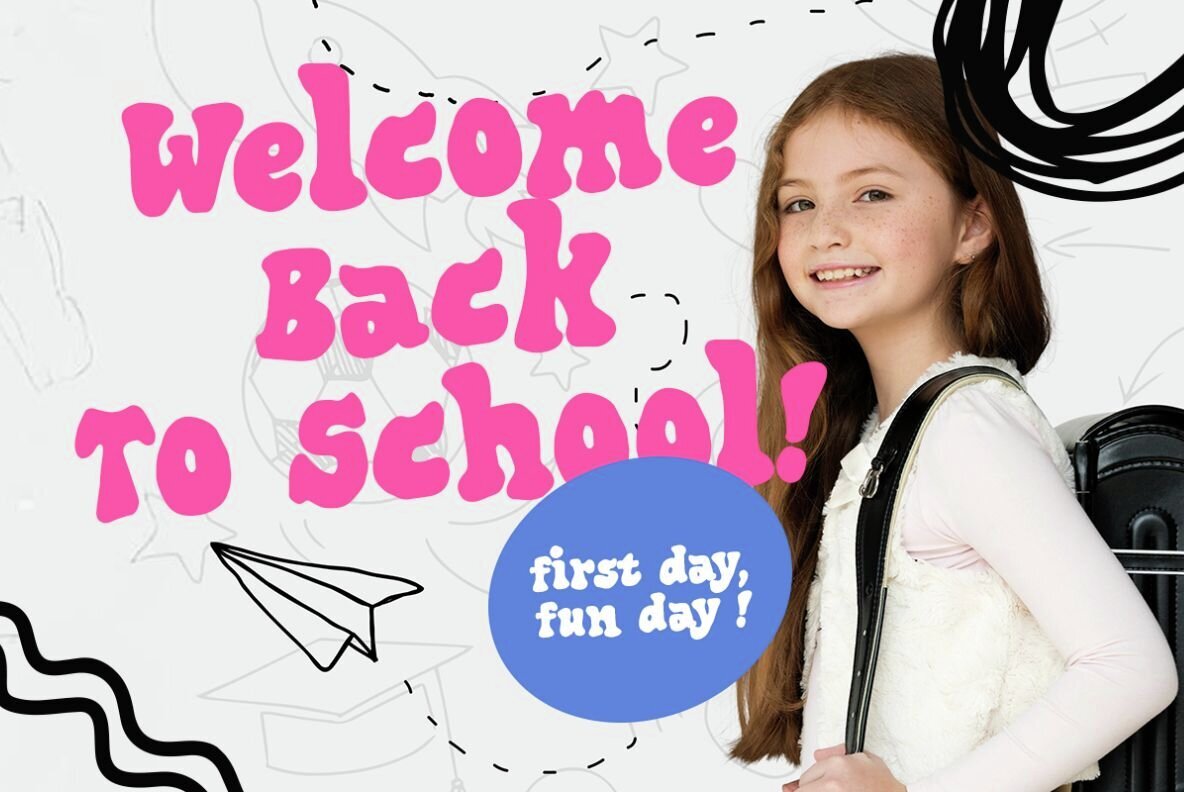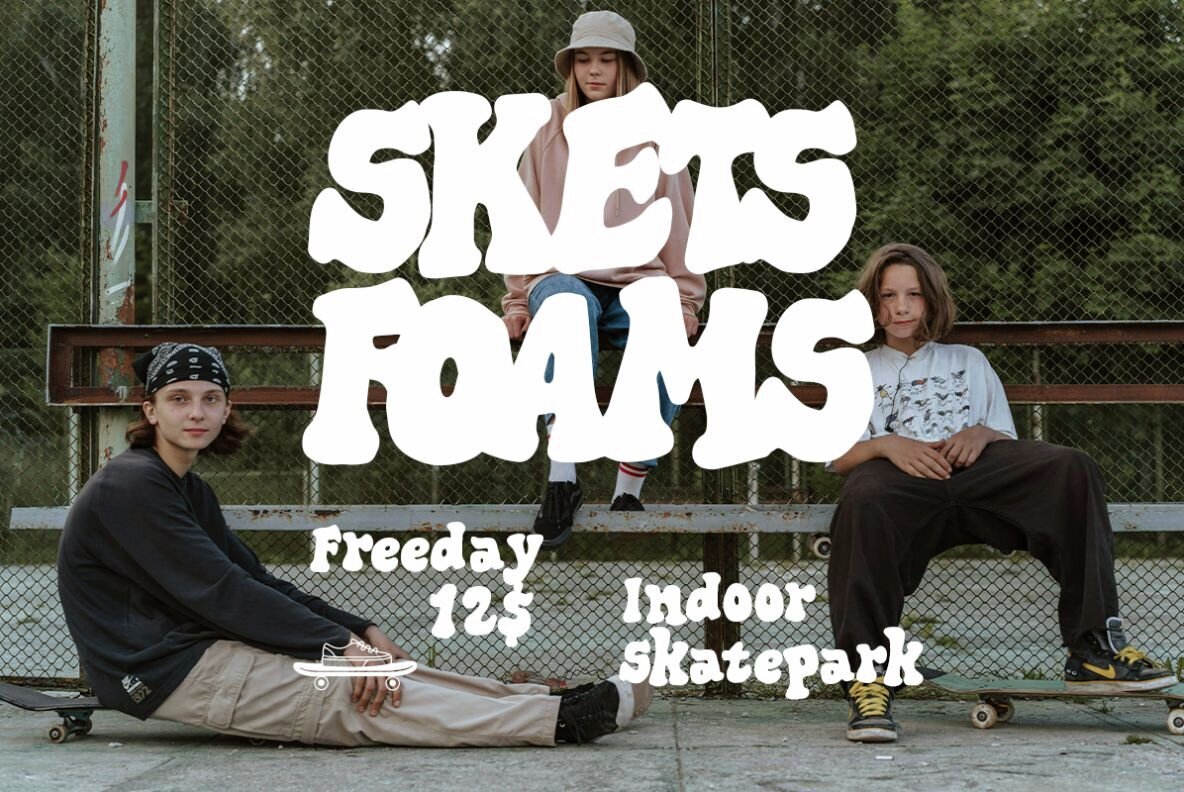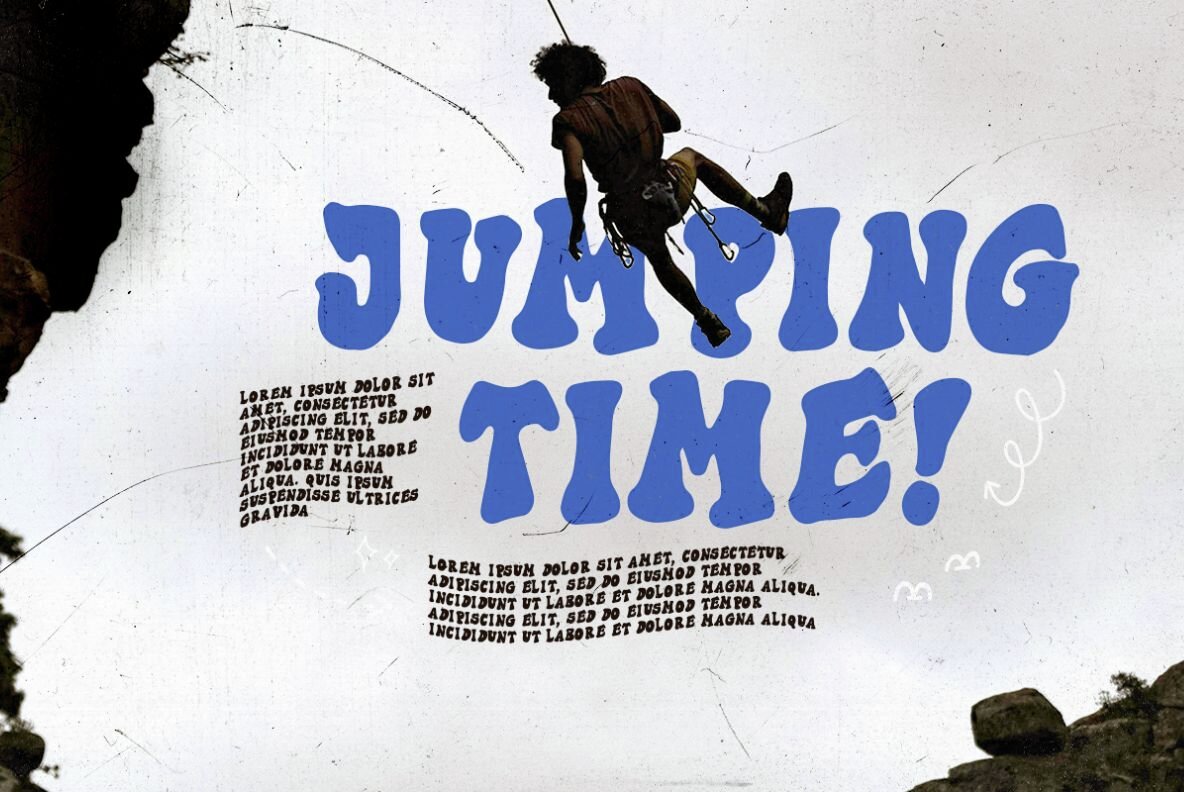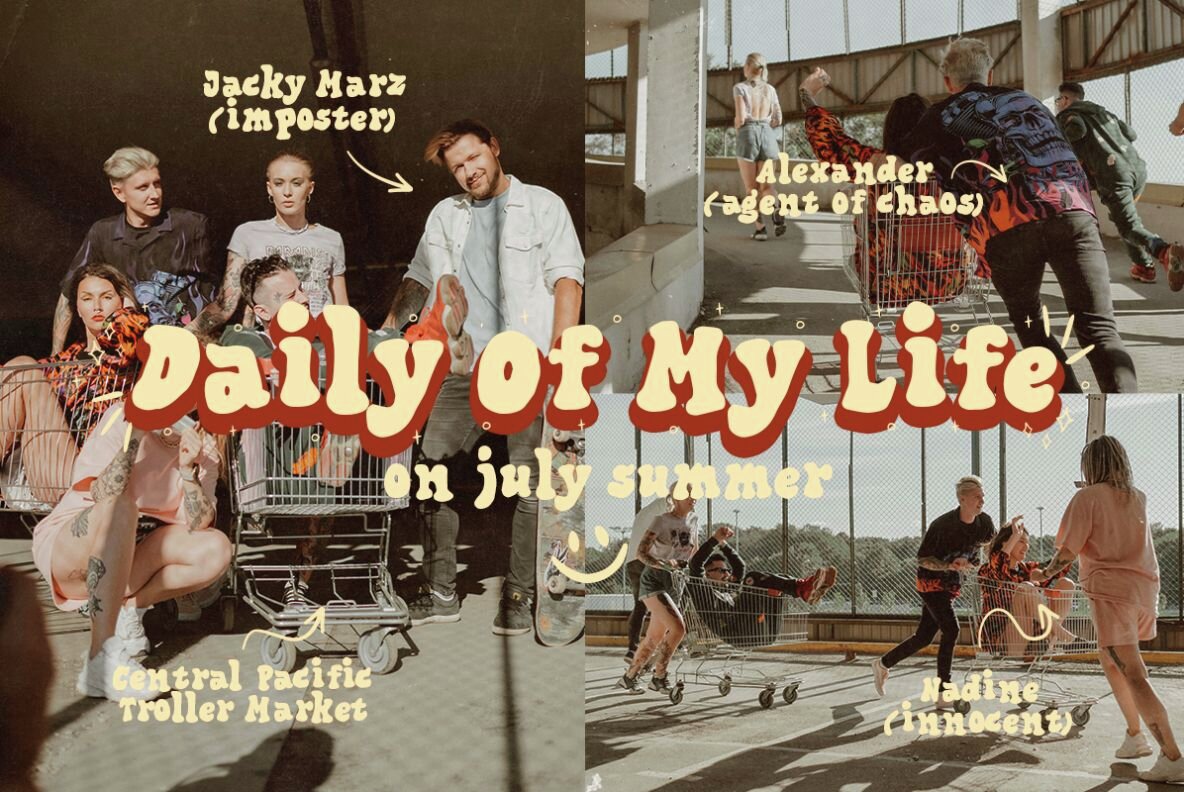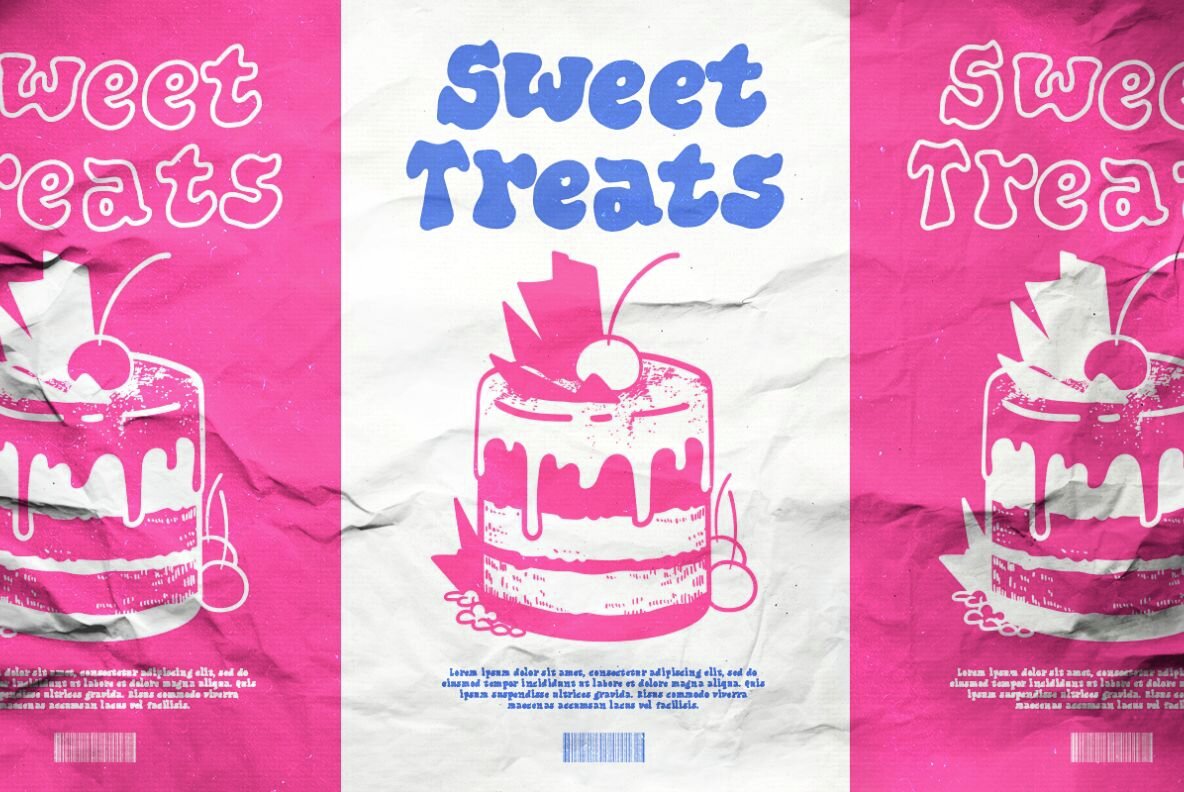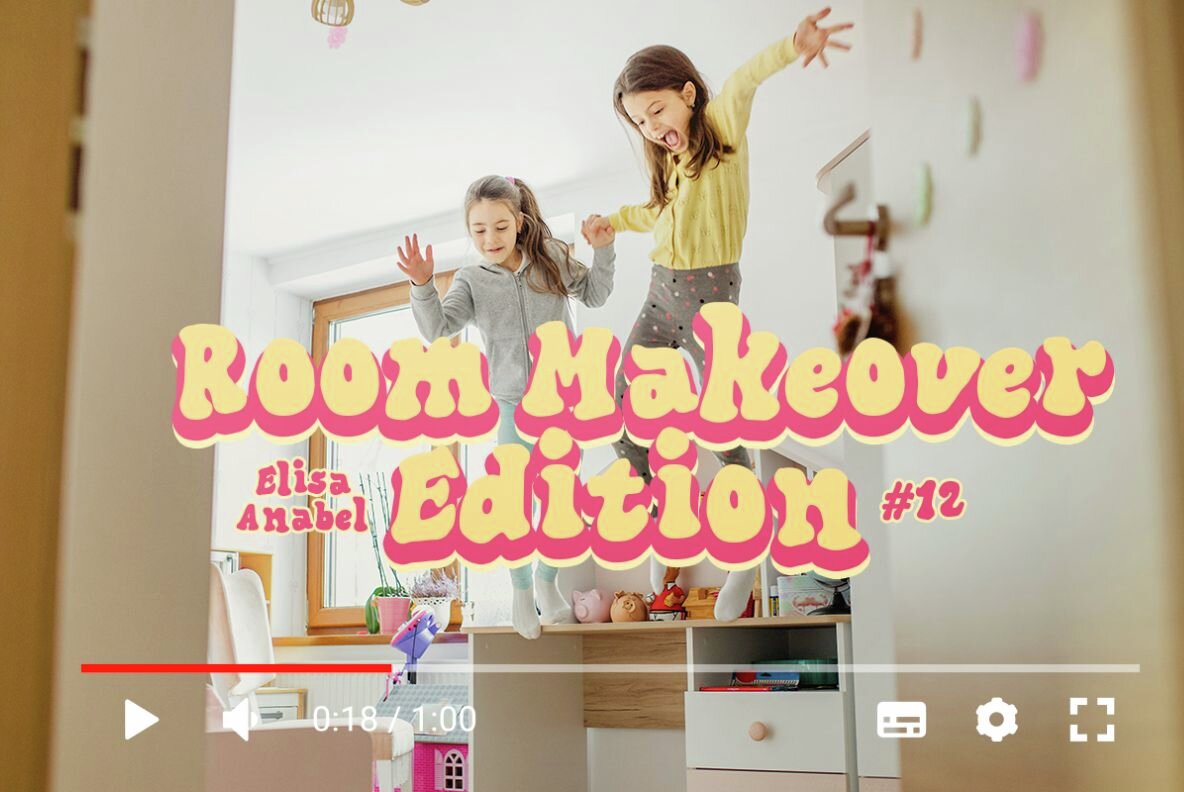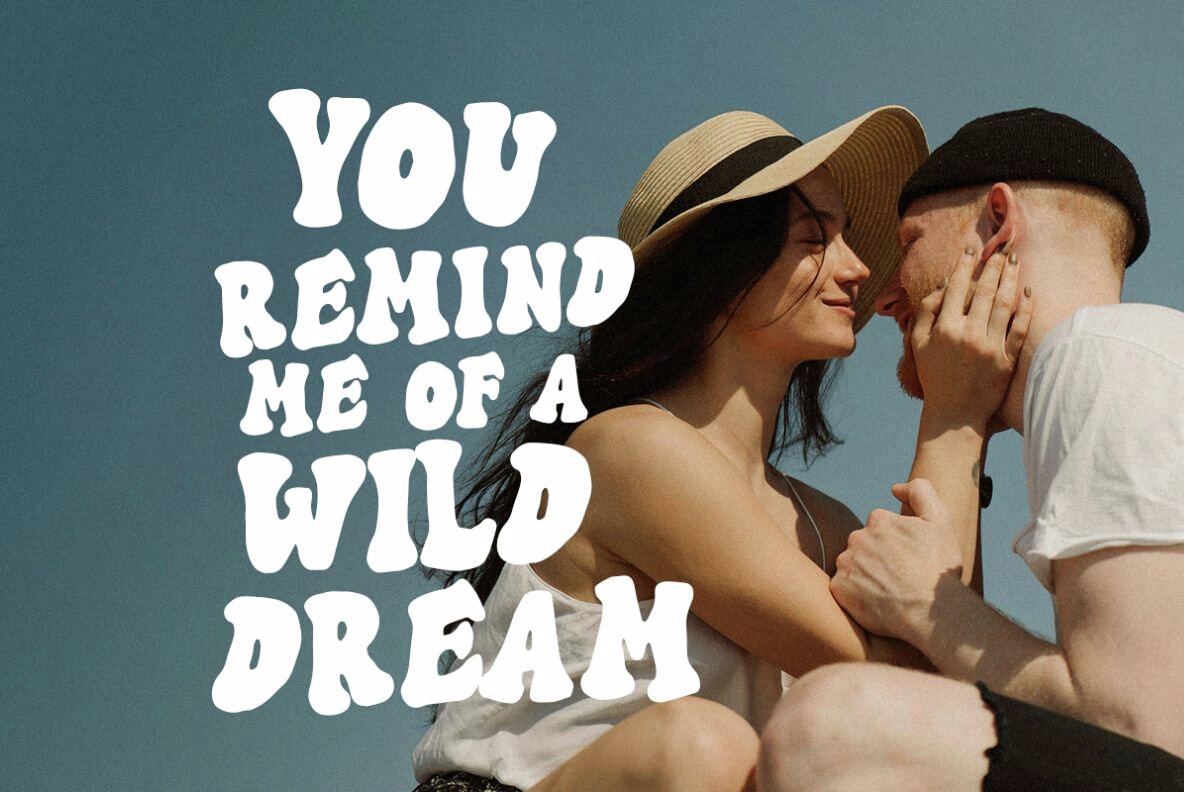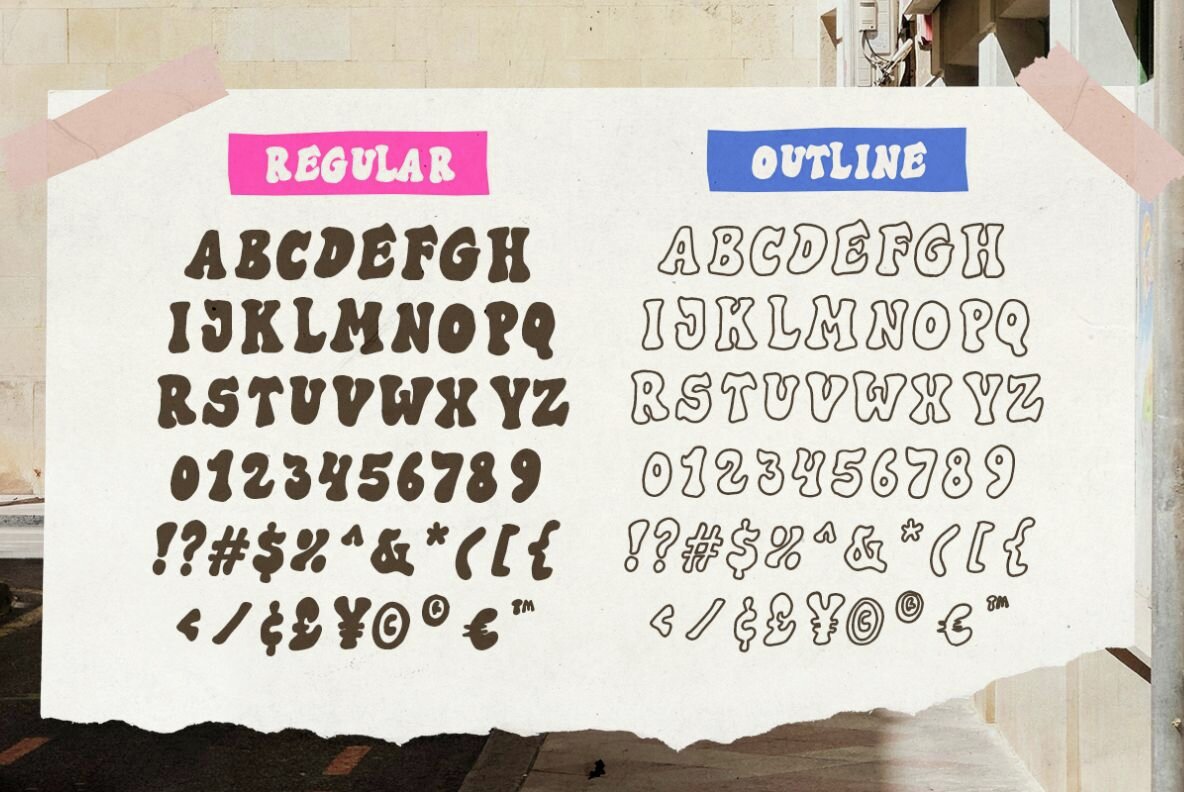
Hey Charlie Font
Hey Charlie Regular
Hey Charlie Outline
Hey Charlie is a charming hand-lettered serif font distinguished by its rough and bold appearance. It's versatile, making it an excellent choice for various design projects, including posters, quotes, titles, and branding. The font features an outline version, allowing for added visual interest in your designs. Importantly, Hey Charlie supports multiple languages, further expanding its usability across diverse projects.